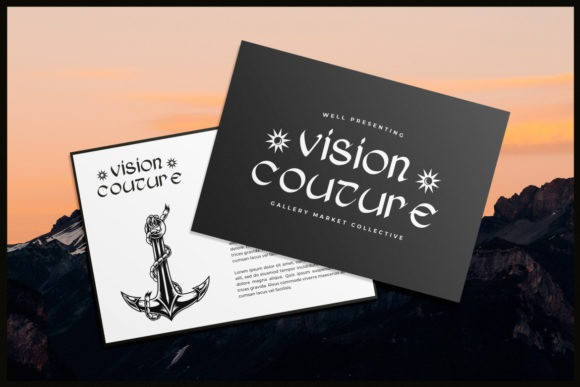
She Dance Font
She Dance Font is a Celtic-style display gothic font that perfectly combines with a modern style! It is a great choice for projects such as logos, watermarks, product packaging, quotes, and more!